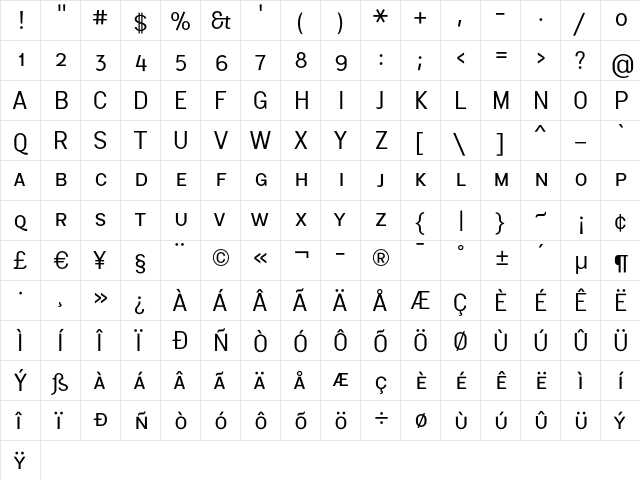
MalmoSans Regular SC Regular Font Preview
MalmoSans Regular SC Regular
Design Context for MalmoSans Regular SC Typeface
MalmoSans Regular SC takes a measured approach to typography — its balanced proportions and neutral character make it a reliable workhorse for both digital and print work.